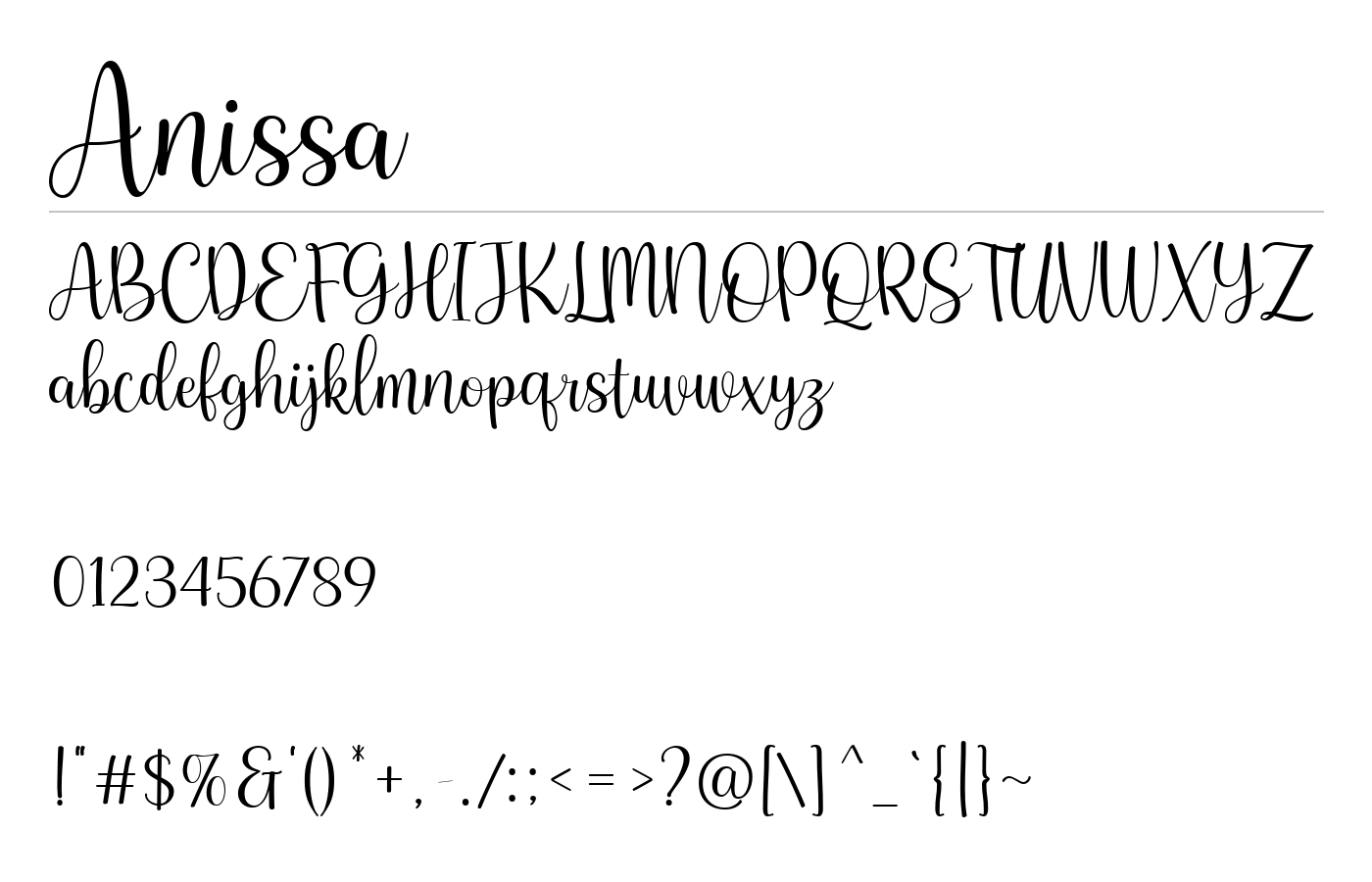
Anissa is an elegant script font with a delicate, handwritten style that combines flowing curves and slender strokes to create a graceful and charming appearance. Its light weight and tall x-height make it ideal for feminine branding, invitations, and logos that want to convey sophistication and warmth. This font works beautifully in display uses where a personal, artistic touch is desired, adding a refined yet approachable feel to any design.
Anissa Font
About Anissa Font